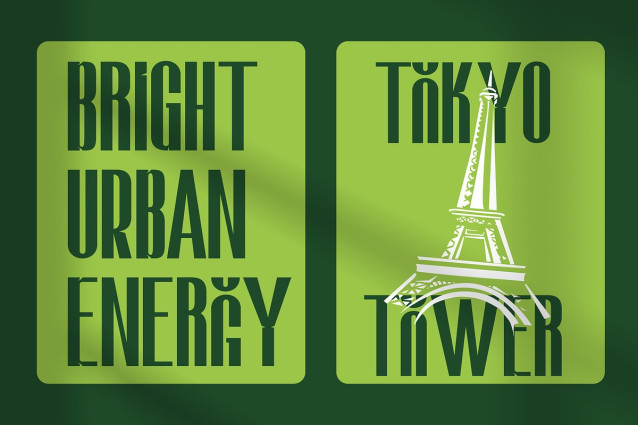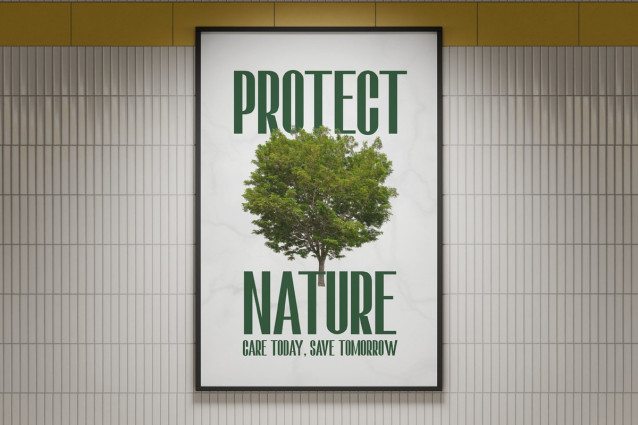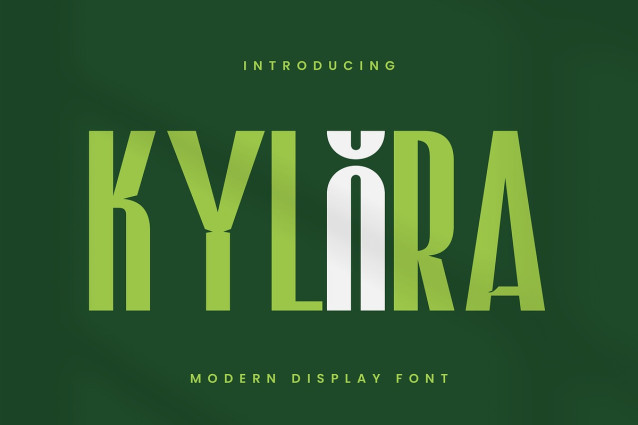
Kylora Font is a bold modern display font designed with tall proportions, refined geometric forms, and a distinctive contemporary character. Blending elegance with a futuristic edge, KYLORA features elongated letterforms, sharp curves, and expressive accents that deliver strong visual impact and confident style.
Its narrow spacing and vertical rhythm create a sleek, eye-catching flow that stands out beautifully in both digital and print layouts. Each glyph is carefully crafted to balance simplicity and sophistication, making KYLORA highly versatile for modern branding and editorial design.